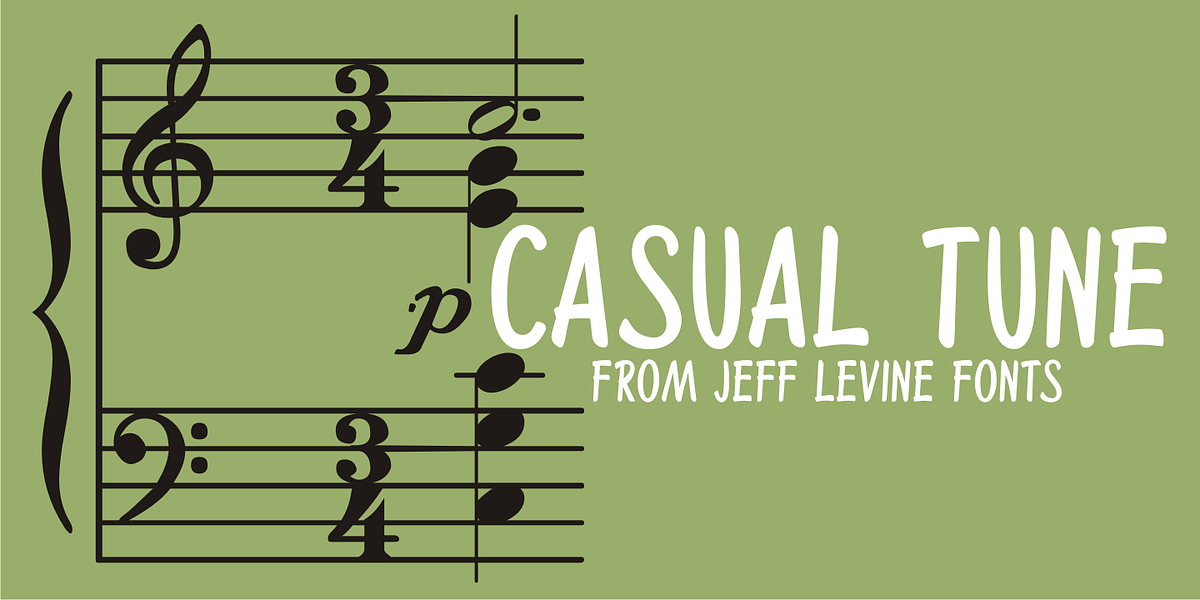
Casual Tune JNL
Brush-style lettering has been a perennial favorite for designers and sign painters because it brings to mind casual, relaxed or friendly themes.
A vintage piece of sheet music called “Pretty Butterfly” by Sunny Skylar features the titled hand lettered in a simple, informal design which became the inspiration for Casual Tune JNL.